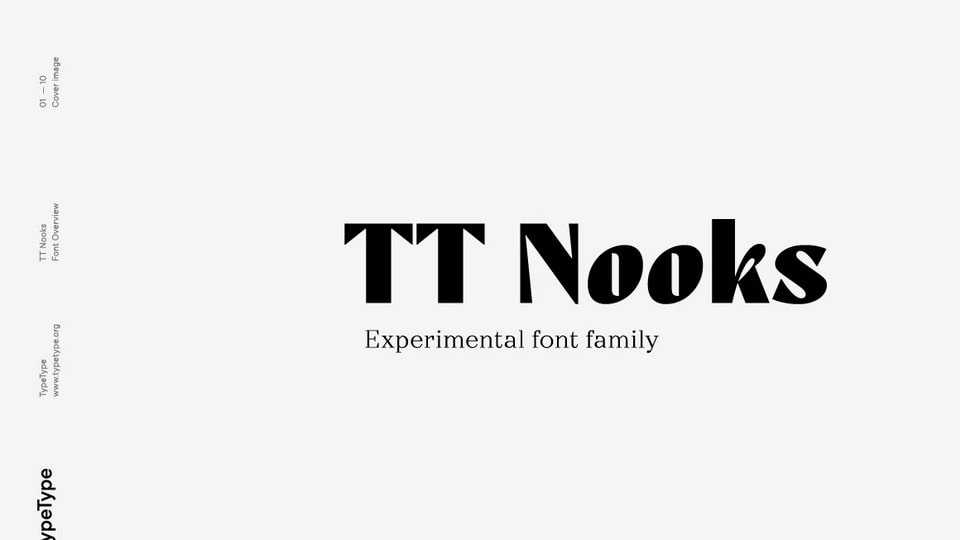
Download TT Nooks is an experimental font family that includes a high contrast serif, TT Nooks, and an upright italic, TT Nooks Script. Despite the difference in style, both subfamilies get along well, which is partially thanks to their similar proportions.